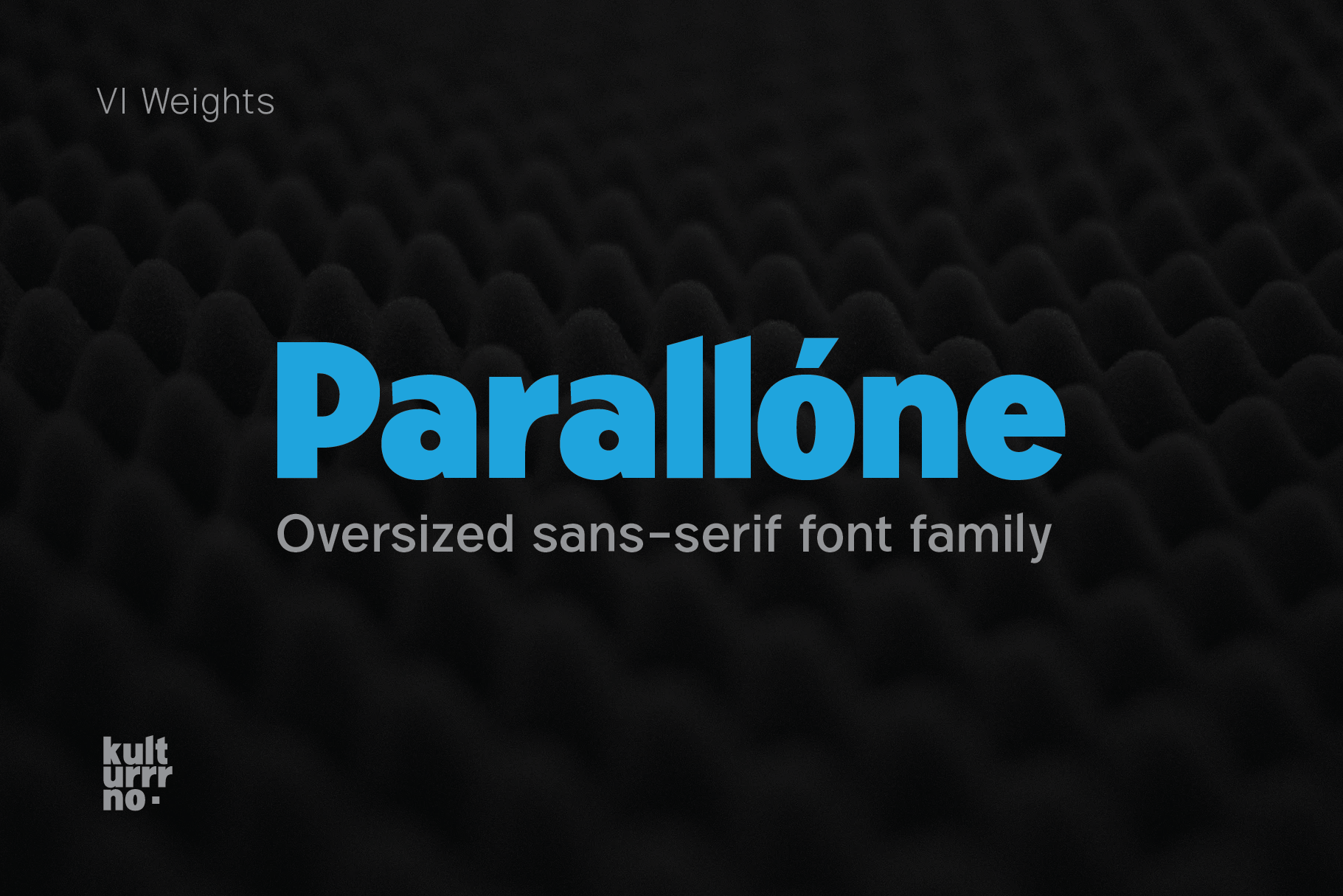
This is the big update of my font Parallone created in 2018.
I needed the compact but not monospaced font with oversized caps. And here it is)
- Extended latin set
- Friendly glyphs design
- Stylistic alternates + ligatures
- 6 weights + italics